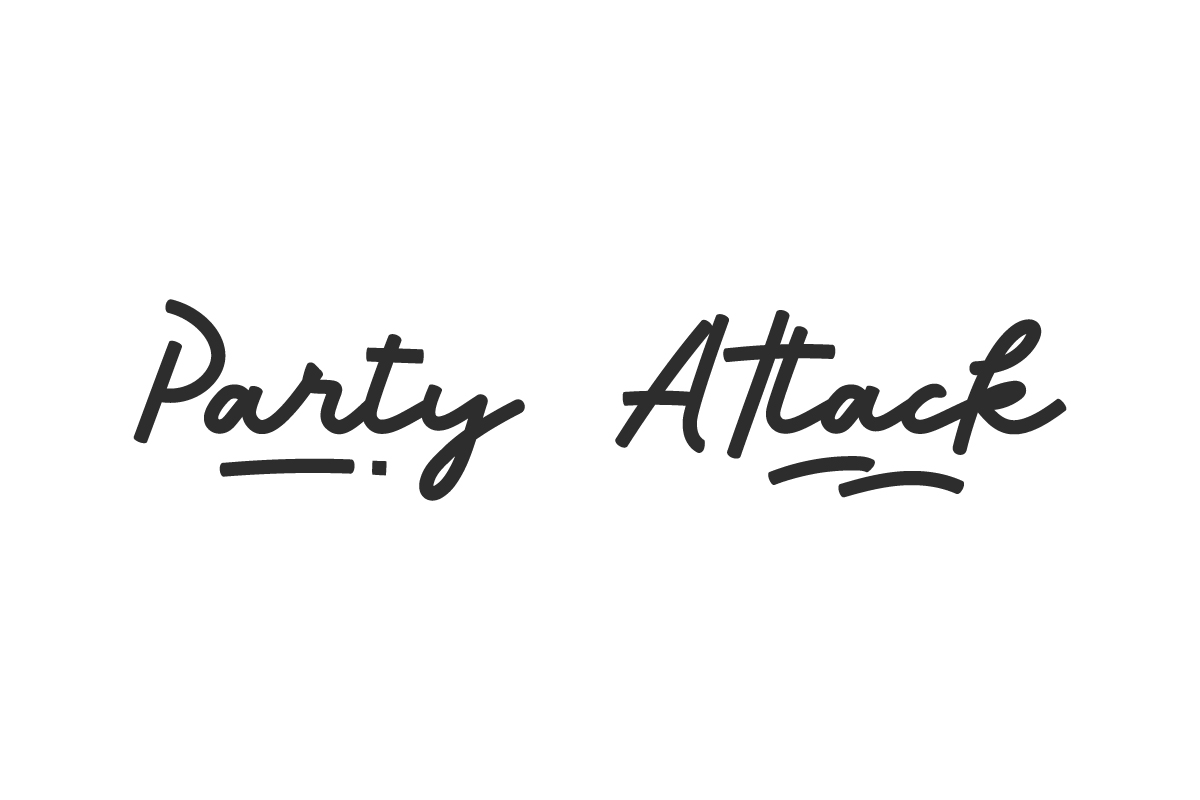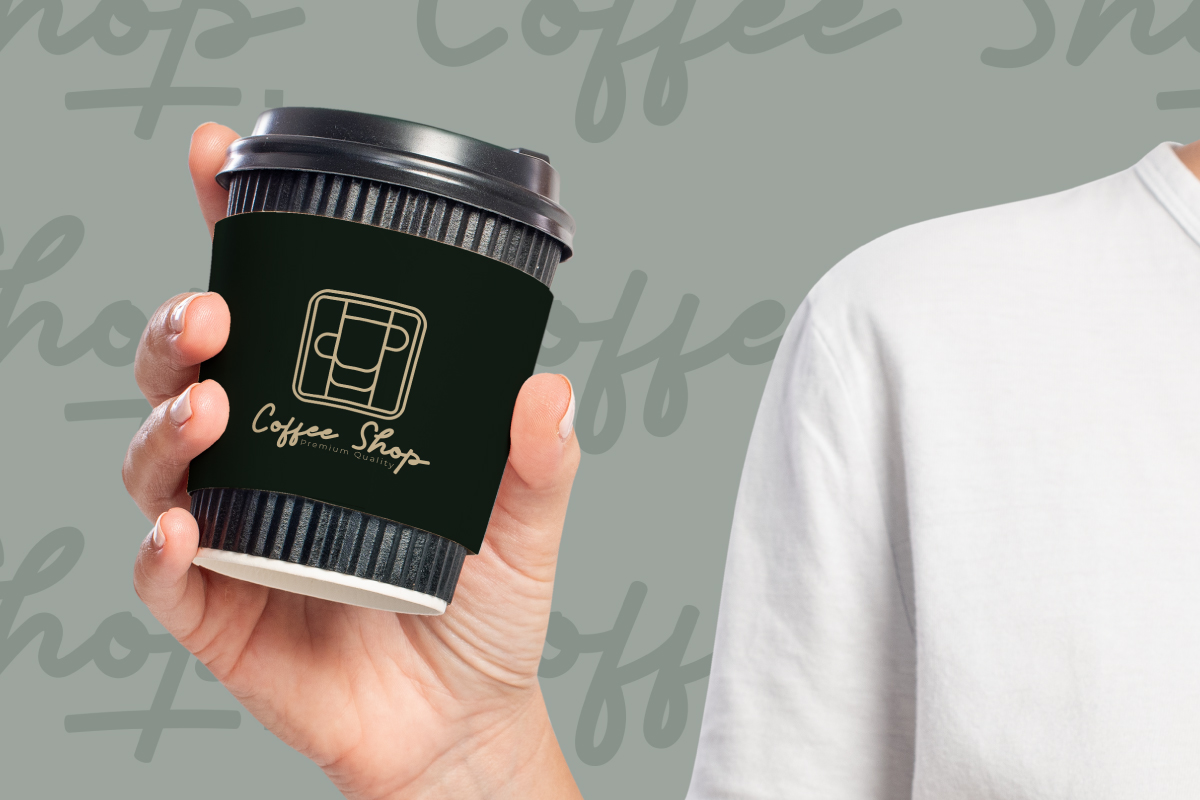
Party Attack Font
Party Attack Handwritten Font
This is a casual, simple, and cheerful handwritten font. This font is great for your next creative projects and business categories such as birthday party, boutique, branding, business card, café, florist, interior design, invitation, kids, logo design, menu flyer, packaging design, quotes, restaurant, school, title, typefaces, watermark on photography, web header, wedding, and many other design project.